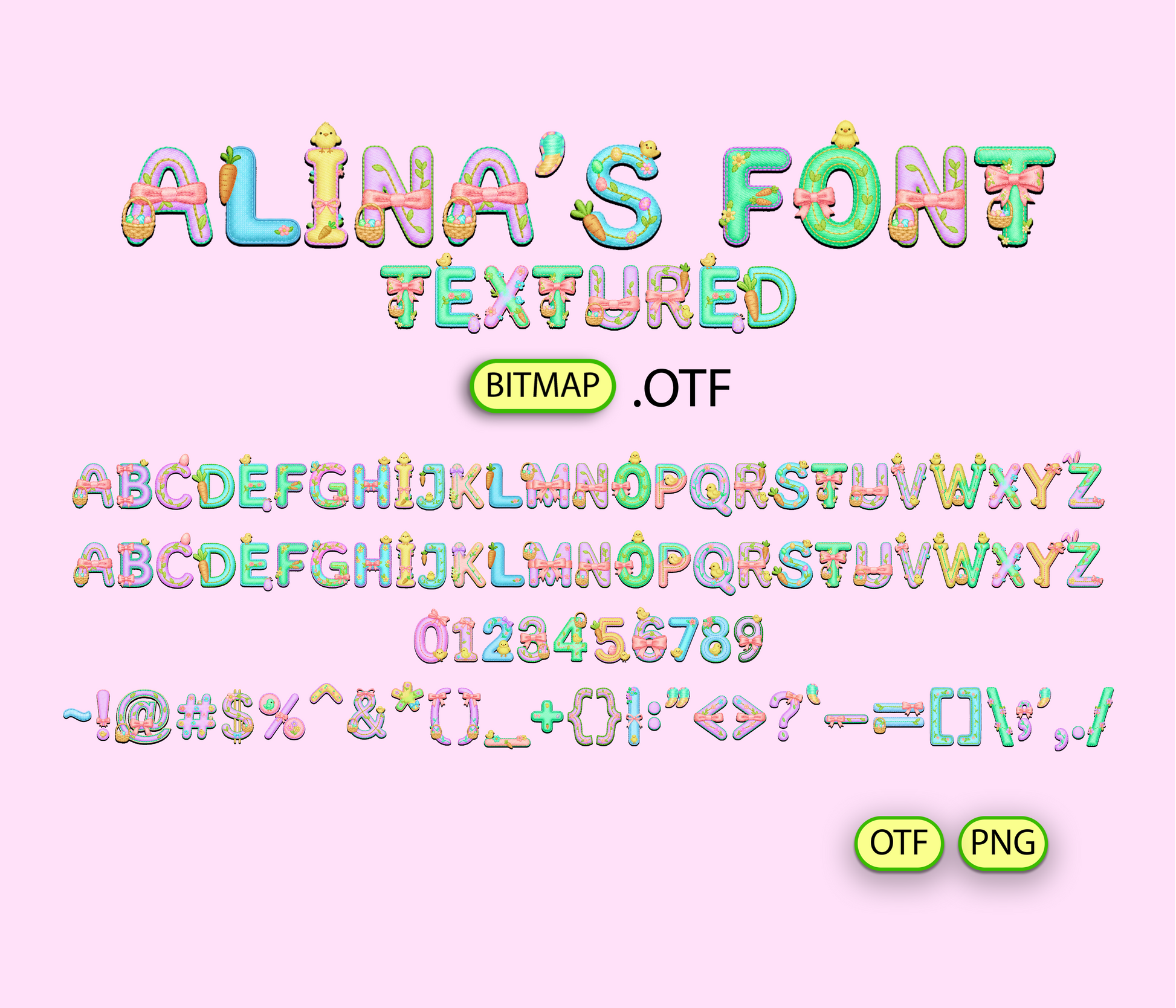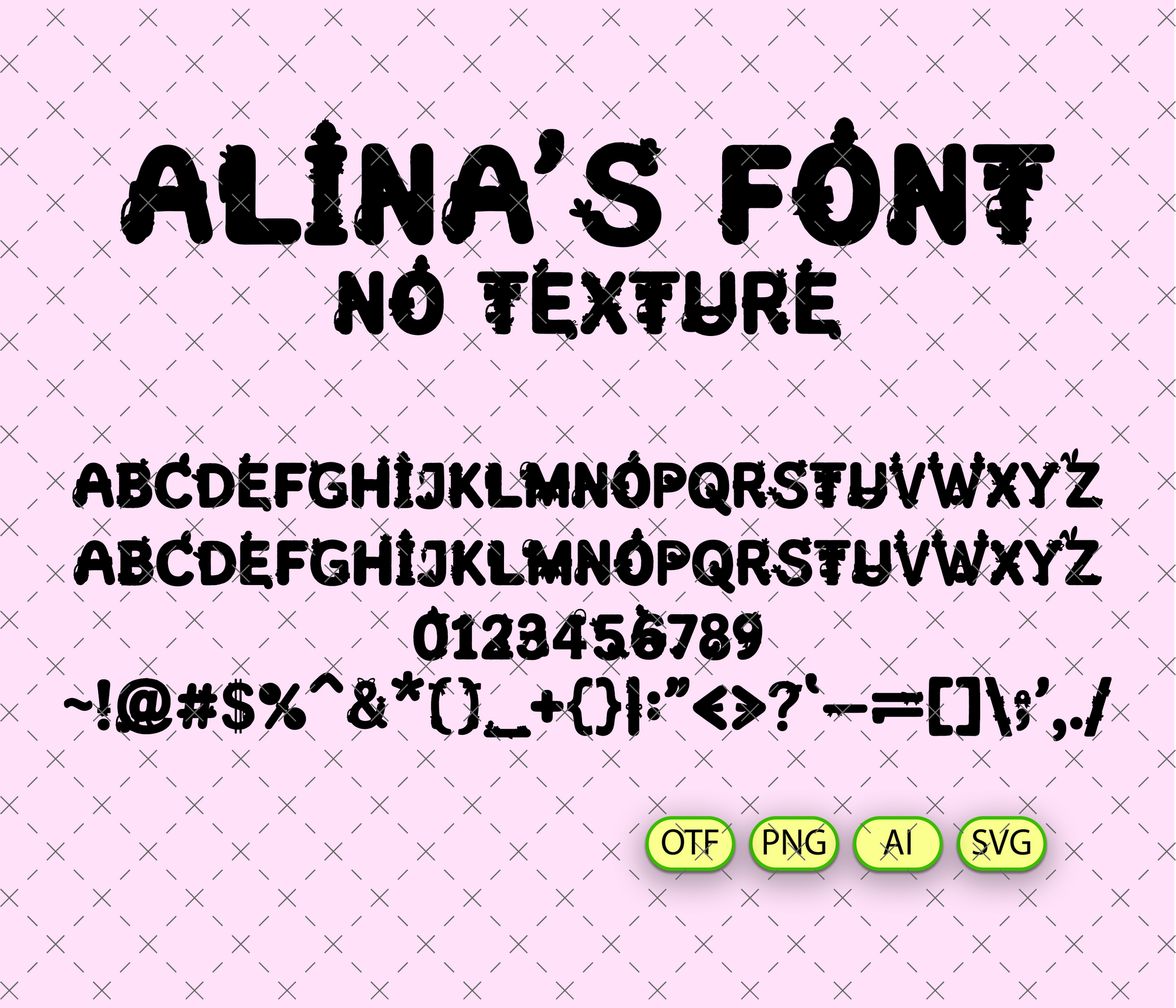
Easter Needlework Font Textured
Wander into the enchanting universe of springtime sewn celebration with our Easter Needlework Font Textured, capturing the essence of thread-woven charm and blossom-season holiday magic. Perfect for holiday enthusiasts, themed event planners, content creators, and creative professionals, this font brings the bold, timeless spirit of handstitched Easter stories to your projects. Create eye-catching invitations, merchandise, or digital content with the dramatic energy of joyful springtime festivity narratives.
Whimsical Typography for Seasonal Design & Holiday Projects
Our Easter Needlework Font Textured features playful, lovingly crafted letterforms with cross-stitch fabric textures reflecting the world of springtime traditions and decorated egg settings.
- Event Promotions: Design captivating invitations, posters, and banners for Easter gatherings, spring carnivals, and celebrations that embody the spirit of cheerful seasonal entertainment
- Merchandise Design: Wonderful for t-shirts, posters, stickers, and accessories that highlight the playful aesthetic of needlework Easter culture themes
- Digital Media: Freshen up websites, blogs, and social media with vibrant headers and graphics that beam the joy of blossoming holiday traditions
- Creative Content: Weave genuine warmth into seasonal artwork, educational designs, and creative projects inspired by treasured Easter egg hunt tales
- Personal Projects: Awaken festive energy across scrapbooking, DIY crafts, and home decor inspired by the world of adorable spring bunny characters
Many seek an online font generator to copy the appearance of the Easter Needlework Font. Think again! No generator can come close to the artistry of our font, which comes in a clean outline version perfect for cutting machines.
Our font embraces the world of handcrafted holiday stories and joyful springtime tradition, empowering your projects with its bold and timeless spirit. Whether crafting seasonal materials, designing themed products, or adding a festive touch to personal projects, this font communicates the vibrant essence of Easter needlework celebration. Ready to thread holiday magic into your creations? This font is your ultimate companion for eye-catching, impactful design.